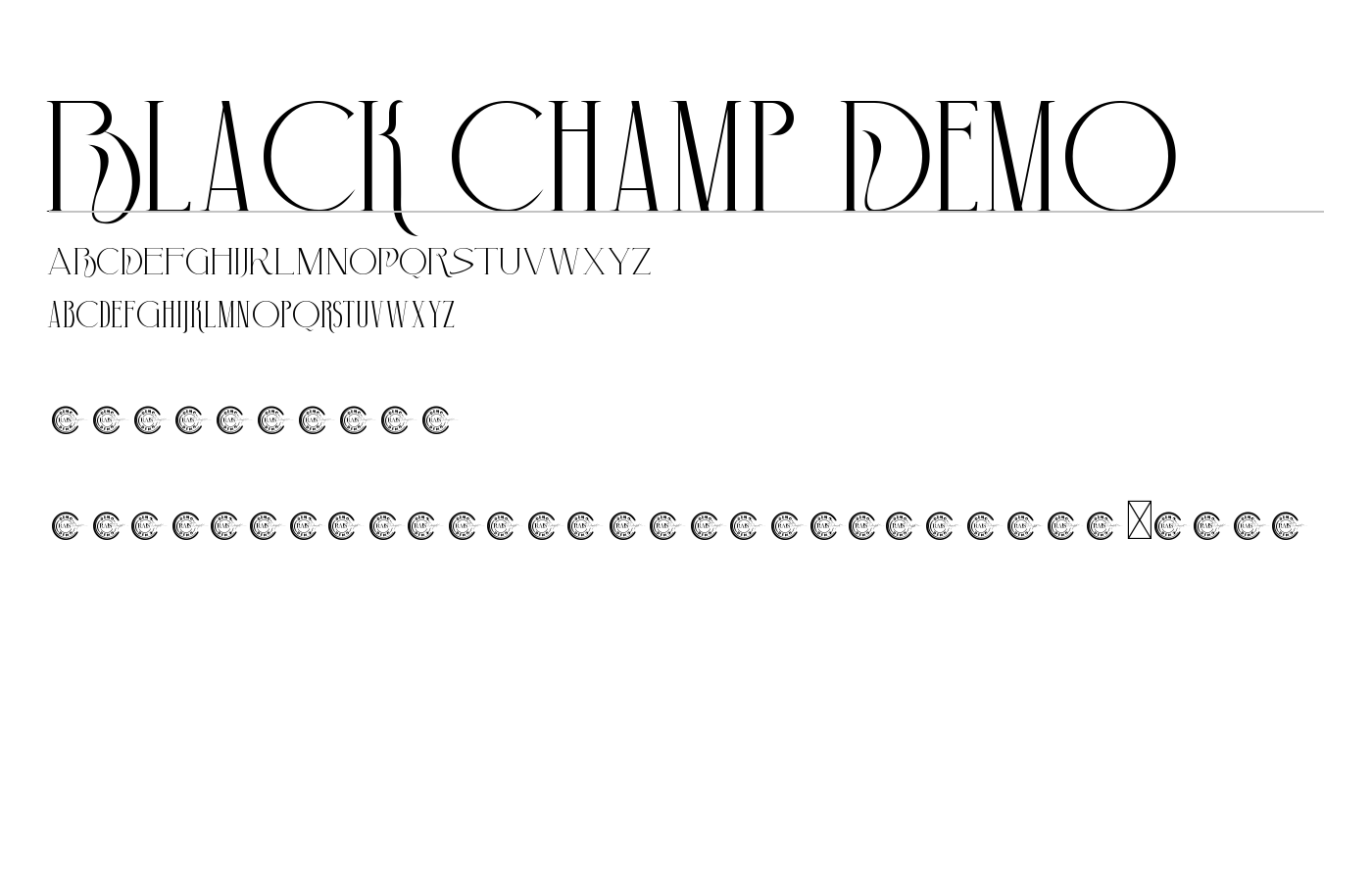
Black Champ Demo is a striking, modern serif font with tall, slender letterforms and high contrast between thick and thin strokes. Its creative, elegant details and unique curves give it an artistic, sophisticated feel perfect for luxury branding, logos, and stylish editorial headlines. This font works best where a refined, avant-garde look is desired to make a bold, memorable impression.
Black Champ Demo Font
About Black Champ Demo Font
| Font family | Black Champ Demo Font |
| Designer | Widiyanti |